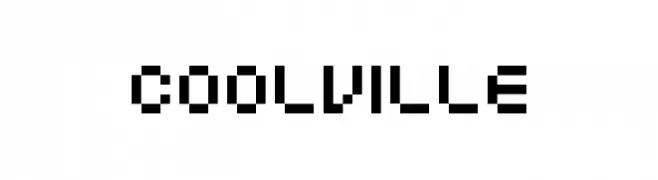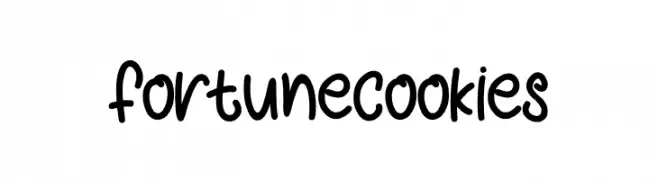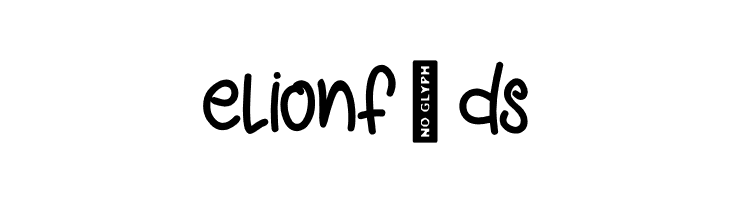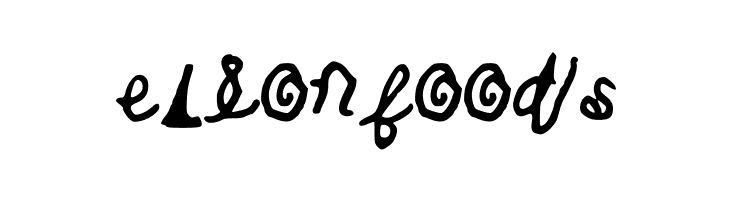
A bold, pixelated font with a retro digital aesthetic.
A playful, handwritten-style font with a smooth, flowing appearance.
A bold, playful font with a hand-drawn, cartoonish style.
A playful, bold, hand-drawn font with a whimsical and organic style.
A bold, playful font with irregular, chunky letterforms and a hand-drawn appearance.
A bold, playful font with rounded, bubbly characters.
A bold, playful, and bubbly font with rounded edges and whimsical curves.